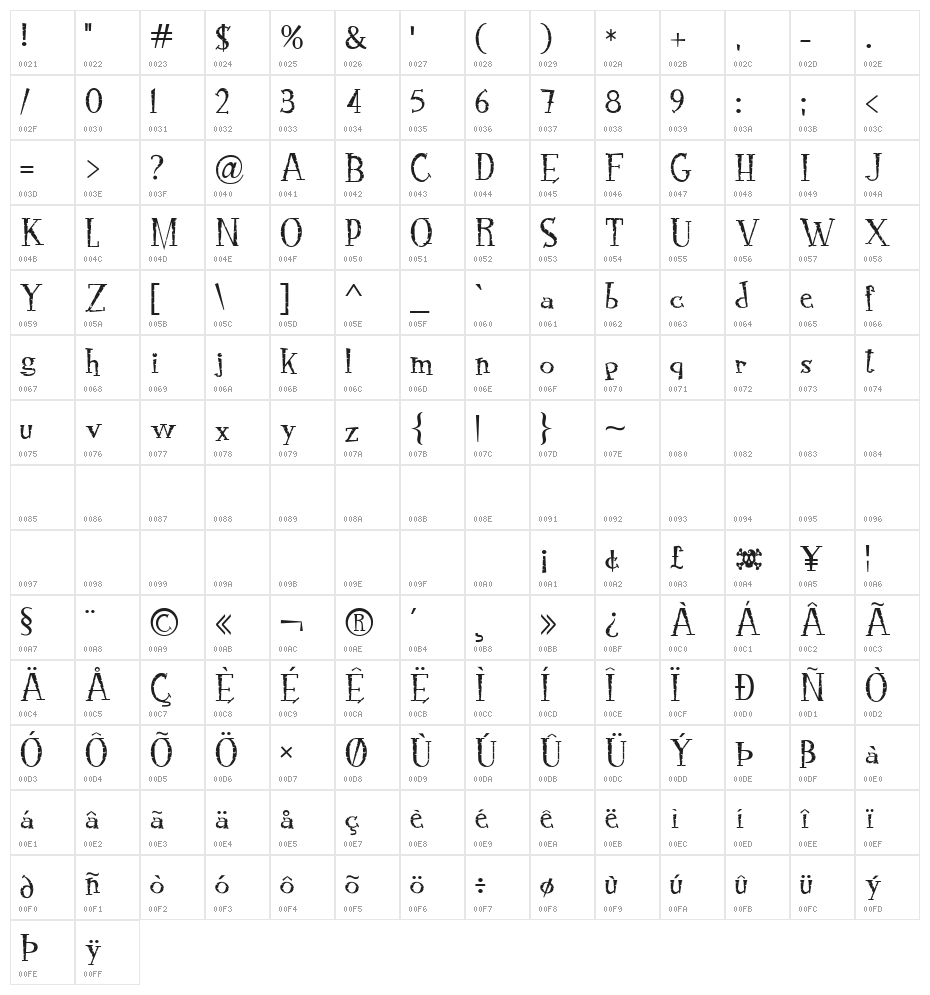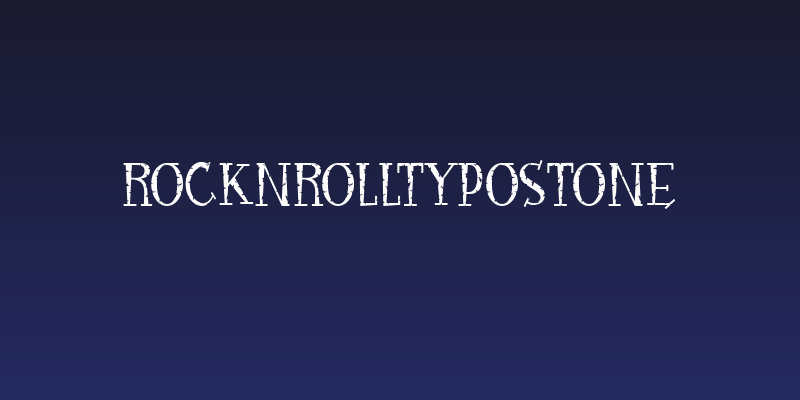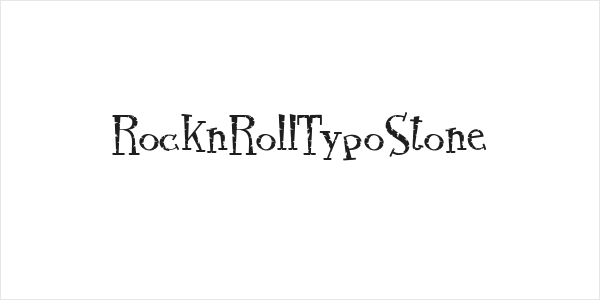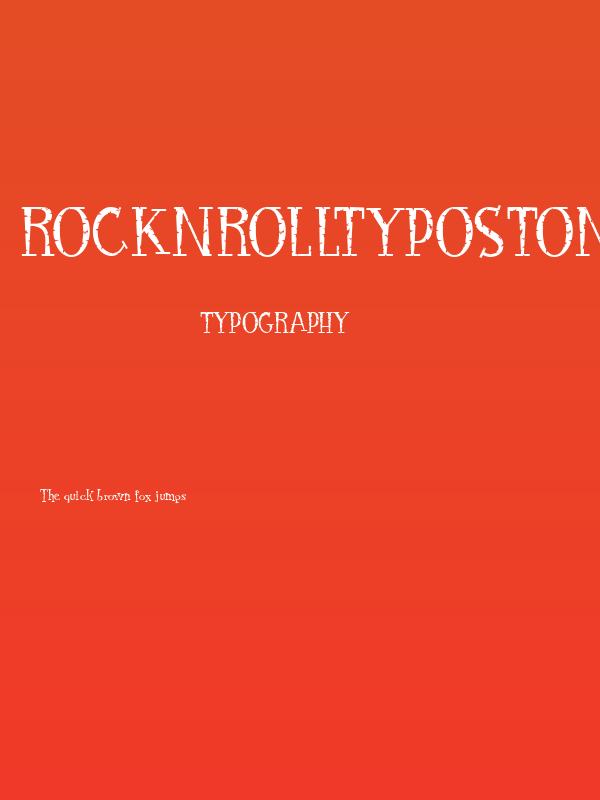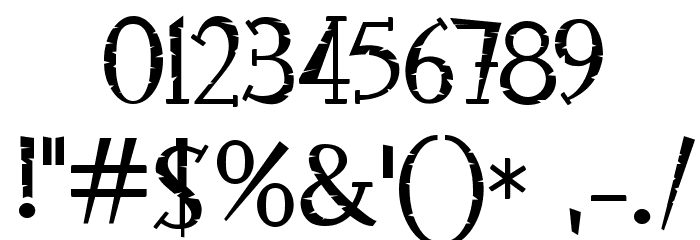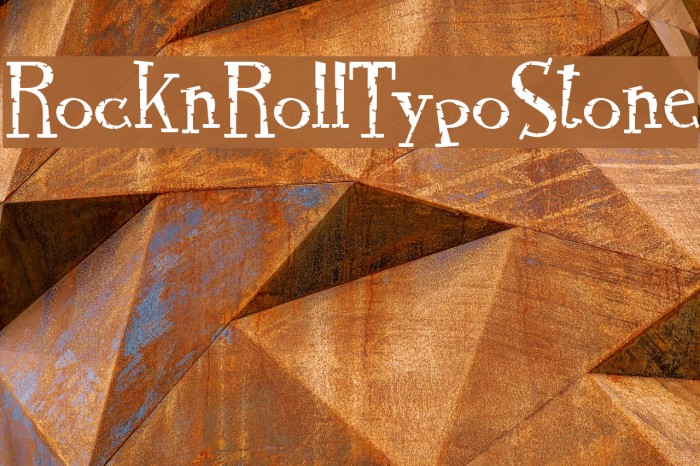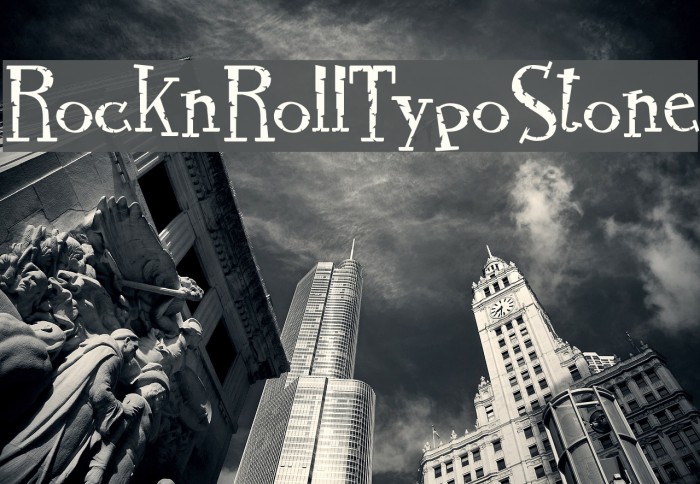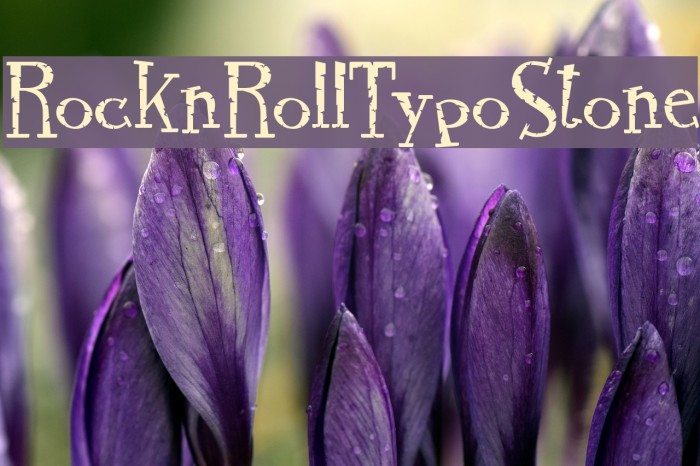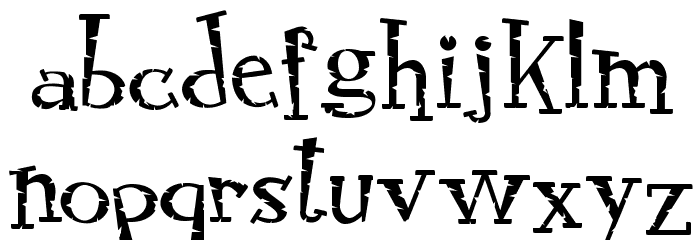
RocknRollTypoStone Font
RocknRollTypoStone Description
This font features a distressed, grungy style with irregular edges and a rough texture, giving it a rock-and-roll vibe. The uppercase and lowercase letters maintain a consistent height, while the numbers and special characters follow the same rugged aesthetic. The font's unique appearance makes it stand out, with each character appearing as if it has been chipped away or eroded over time. This design choice adds a sense of movement and energy, making it ideal for projects that require a bold and edgy look.
| Proposed Projects | Ideal for music album covers, concert posters, edgy branding, and rebellious-themed designs. |